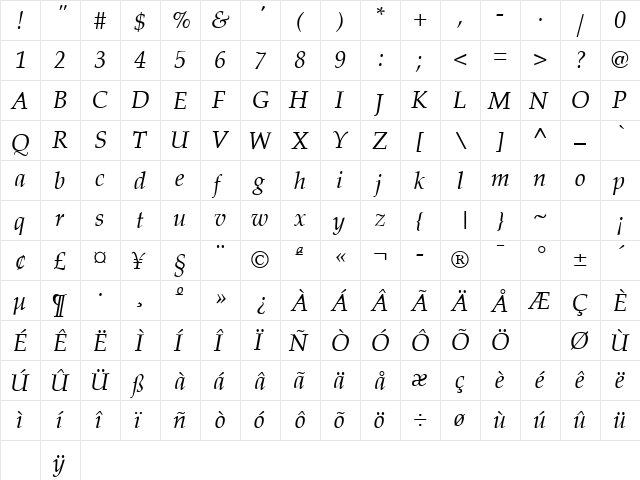
Palatia Italic Font Preview
Palatia Italic
Palatia Italic Font Details
Design Context for Palatia Typeface
Palatia takes a measured approach to typography — its balanced proportions and neutral character make it a reliable workhorse for both digital and print work. The slanted form adds forward momentum and visual energy.
Pro Tip: Try Palatia for annotation and caption copy alongside an upright companion — the contrast in angle creates a dynamic but ordered typographic system.